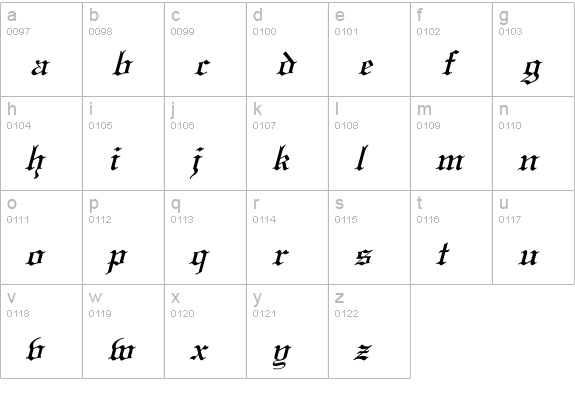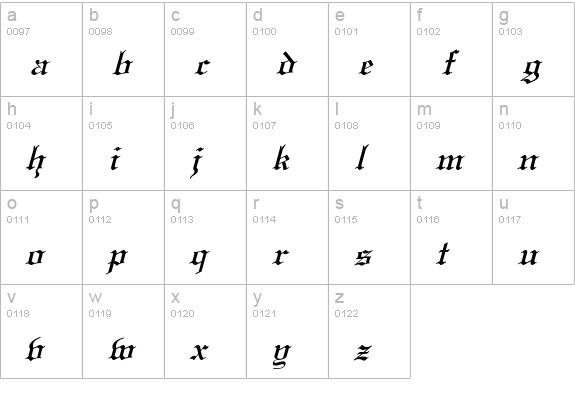
Old English Italic Font Details
Old English Italic is a distinctive, italic variant in the Old typeface family \xE2\x80\x94 well suited to design and typography projects.
Introducing the exquisite Old English Italic font, a timeless typeface that exudes elegance and sophistication. With its ornate details and classic styling, this font is perfect for adding a touch of old-world charm to your designs. The Old English Italic font is freely available to download at FontsMarket.com, making it easily accessible for all your creative projects. Whether you're looking to create invitations, branding materials, or signage, this font will surely make a lasting impression with its distinctive beauty and historic appeal. Embrace the richness of the past with the Old English Italic font and elevate your designs to new heights of sophistication.